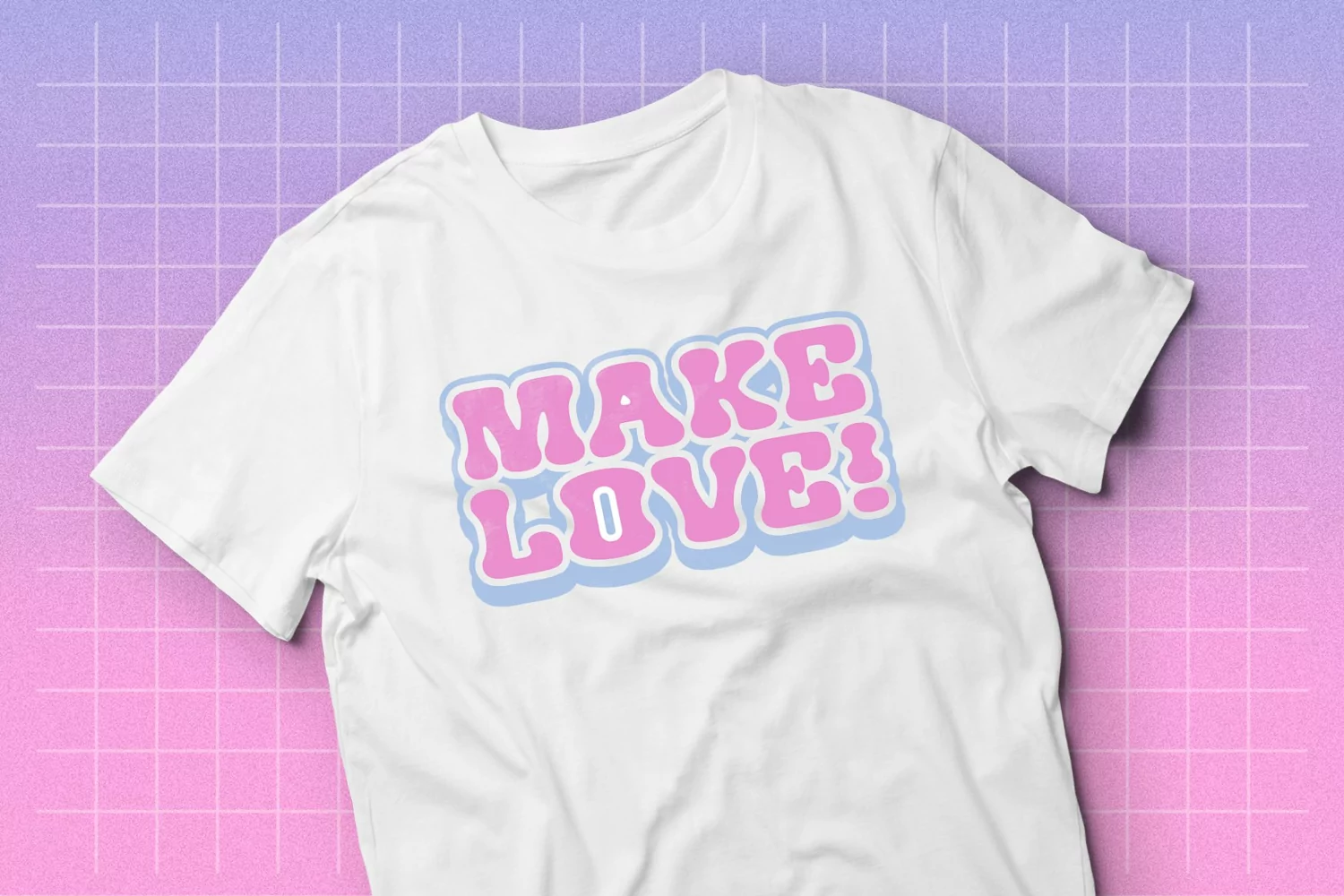
Framboise is an abstract groovy typeface and suitable for non-formal writing such as celebrations, food or holidays posters also suitable for writing on logos.